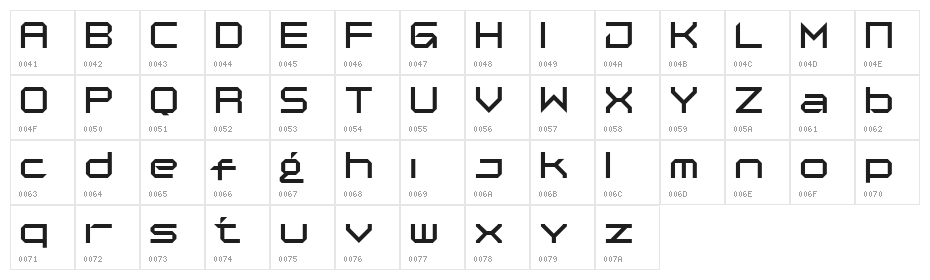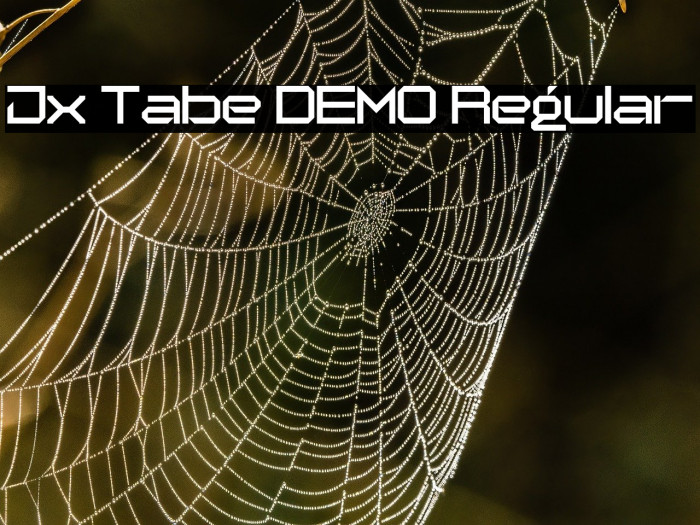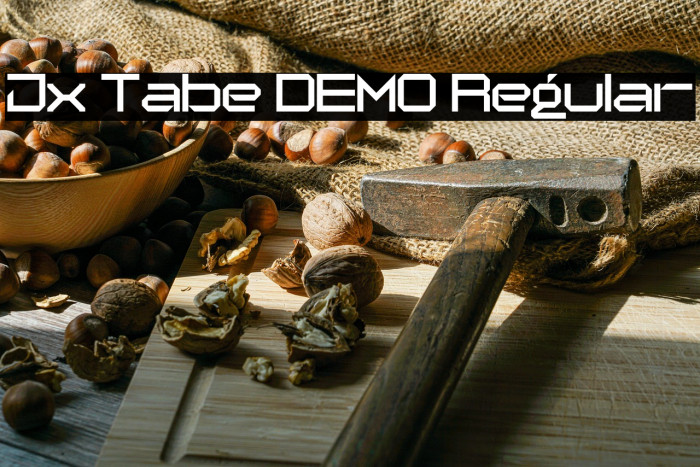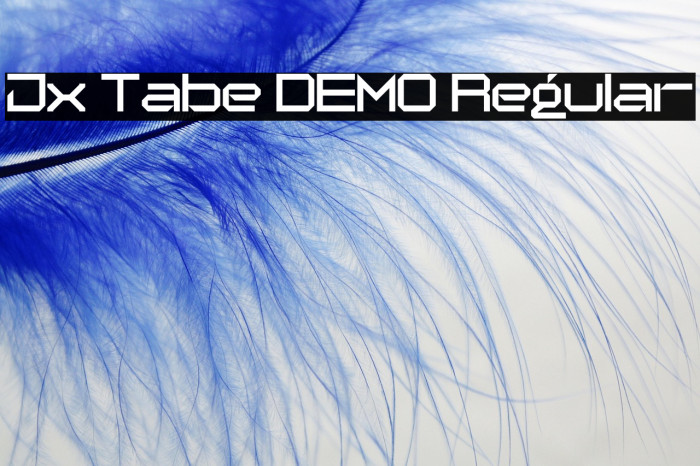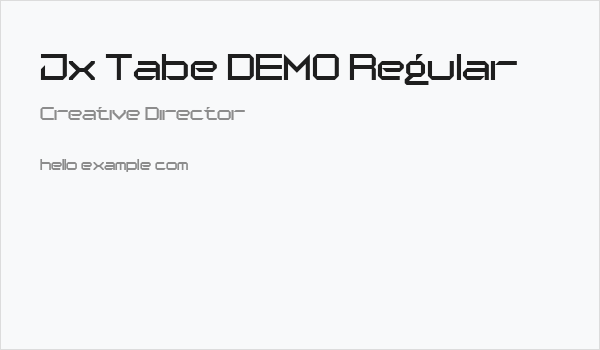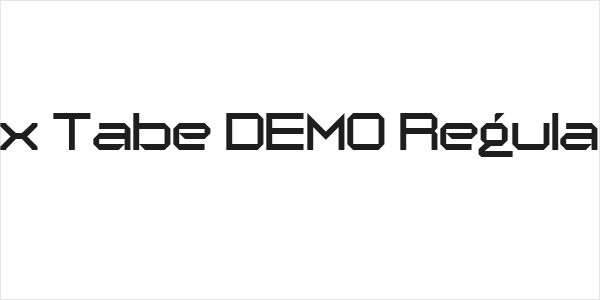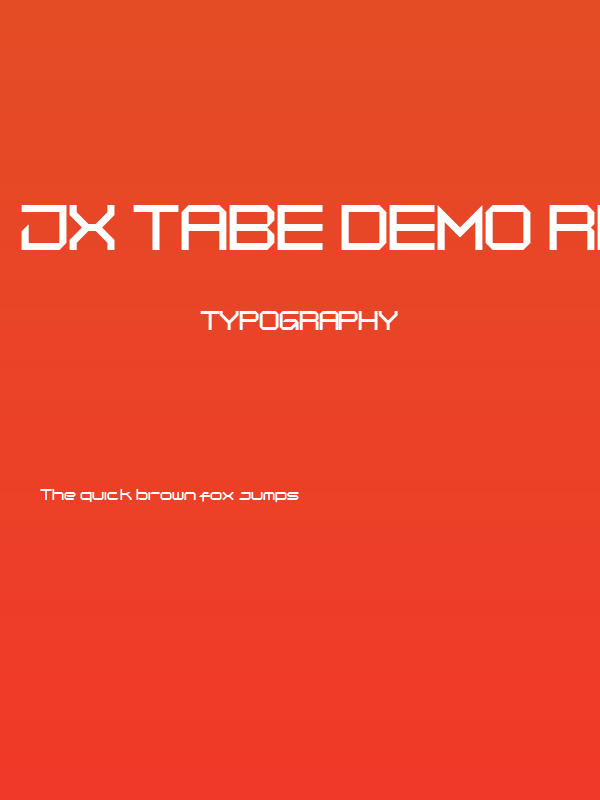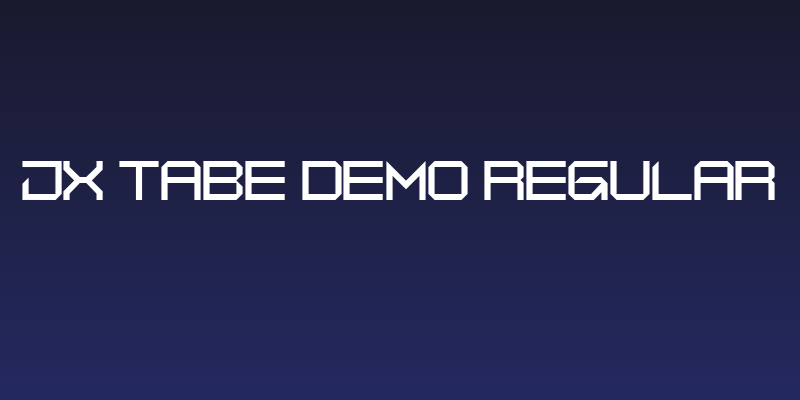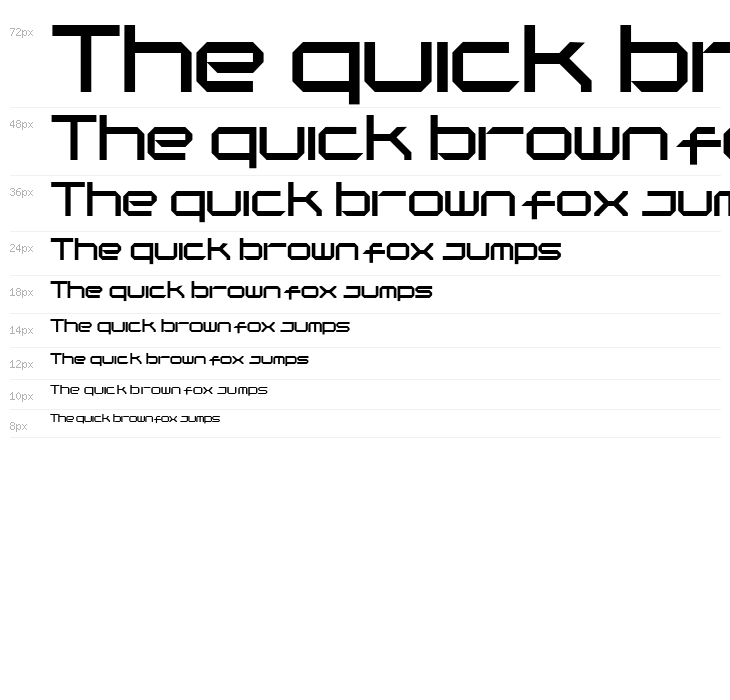
Jx Tabe DEMO Regular Font
Jx Tabe DEMO Regular Description
This font features a geometric and futuristic design with sharp angles and clean lines. The uppercase and lowercase letters maintain a consistent height, creating a uniform appearance. The characters are constructed with a combination of straight lines and right angles, giving them a technical and modern look. The font's structure is bold and impactful, making it suitable for attention-grabbing headlines or logos. The spacing between characters is tight, enhancing the compact and cohesive feel of the text. Overall, this font exudes a sense of precision and modernity, ideal for projects that require a contemporary and edgy aesthetic.
| Proposed Projects | Ideal for technology branding, sci-fi posters, video game titles, and modern logos. |
Jx Tabe DEMO Regular